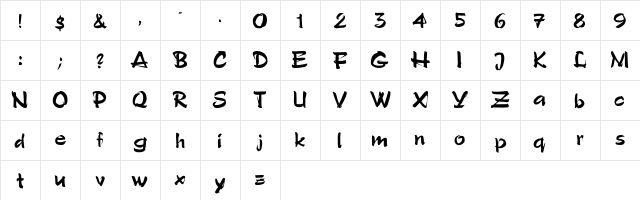
Polo-SemiScript Regular
Design Context for Polo-SemiScript Typeface
Polo-SemiScript brings a calligraphic fluidity to the page — its connecting strokes and expressive curves give it an unmistakably human quality.
Font Pairing: Combine Polo-SemiScript with a simple geometric sans for maximum contrast — the tension between flowing curves and clean structure is a classic typographic pairing.
Pro Tip: Use Polo-SemiScript for short runs of text — names, titles, or taglines. Extended body copy in script faces tires the eye quickly.